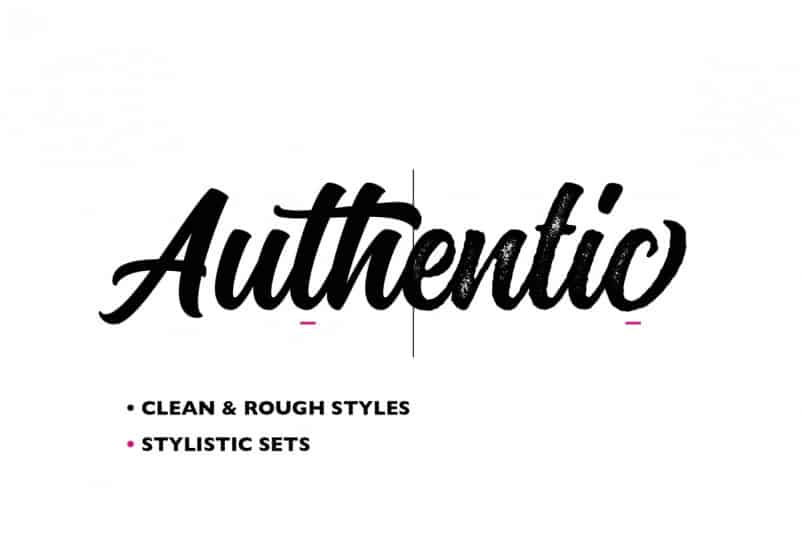
Montana Script Font
Montana Script Font is a casual script typeface and combination with Hand Lettering style which gives more handwriting touch and makes the font looks being customized. You can use it as a logo, badge, insignia, packaging, headline, poster, t-shirt/apparel, greeting card, and wedding invitation. The flowing characters are ideal to make attractive messages. Mix and match Montana with a bunch of alternative characters to fit your project.
The alternative characters in this font were divided into several OpenType features such as Stylistic Alternates, Stylistic Sets, and Ligature. The OpenType features can be accessed by using OpenType programs such as Adobe Illustrator, Adobe Photoshop, and Adobe InDesign.